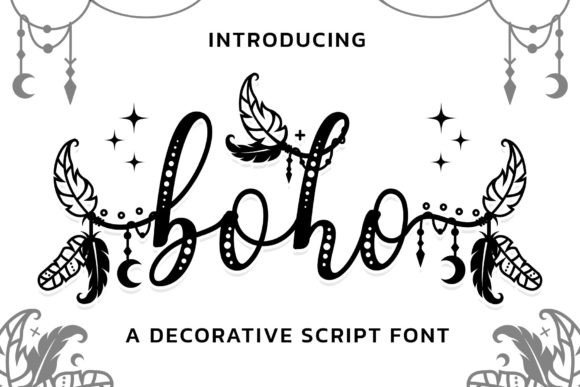
Introducing Boho Font: Elevate Your Designs with Elegance and Freedom
Are you a designer or crafter looking for a unique and captivating font to add a touch of elegance and coziness to your creations? Look no further than the Boho Font, a stunning Boho concept font that embodies the essence of freedom and individuality. Inspired by the Boho design aesthetic, this beautiful font is perfect for a wide range of applications, from t-shirts and SVG designs to print products and more.
The Boho Design Inspiration
The Boho design style, short for Bohemian, is characterized by its eclectic and free-spirited approach to art and design. It’s all about embracing individuality and self-expression, often incorporating elements of nature, vintage patterns, and global cultures. The Boho Font takes its cues from this design movement, exuding a sense of carefree elegance and sophistication.
What Makes Boho Font Special?
- Unique and Elegant Design: The Boho Font boasts a distinctive and refined design that’s perfect for creating eye-catching and memorable designs.
- PUA Encoded: This font is PUA (Private Use Area) encoded, which means you can easily access all the glyphs and swashes to add an extra layer of creativity to your designs.
- Cozy and Freedom Theme: The Boho Font is designed to evoke a sense of coziness and freedom, making it ideal for designs that require a touch of warmth and personality.
- Versatile: Whether you’re working on t-shirts, SVG designs, print products, or any other type of project, the Boho Font is the perfect choice.
The Boho Font is a dream come true for designers and crafters who want to add a touch of elegance and whimsy to their creations. Whether you’re a professional designer or a DIY enthusiast, this font is easy to use and versatile enough to suit a wide range of projects. Here are just a few ideas to get you started:
- T-Shirts and Apparel: Create stunning t-shirts, hoodies, and other apparel with the Boho Font, perfect for music festivals, outdoor enthusiasts, and anyone who loves a bohemian lifestyle.
- SVG Designs: Use the Boho Font to create intricate and beautiful SVG designs for cutting machines, perfect for crafters and makers.
- Print Products: Add a touch of elegance to your print products, such as brochures, flyers, and posters, with the Boho Font.
Tips for Using Boho Font
To get the most out of the Boho Font, here are a few tips to keep in mind:
- Experiment with Swashes: Take advantage of the PUA encoding to access the glyphs and swashes, adding an extra layer of creativity to your designs.
- Mix and Match: Combine the Boho Font with other fonts and design elements to create a unique and eye-catching look.
- Play with Colors: The Boho Font looks stunning in a range of colors, from earthy tones to bold brights. Experiment with different color palettes to find the perfect combination for your design.